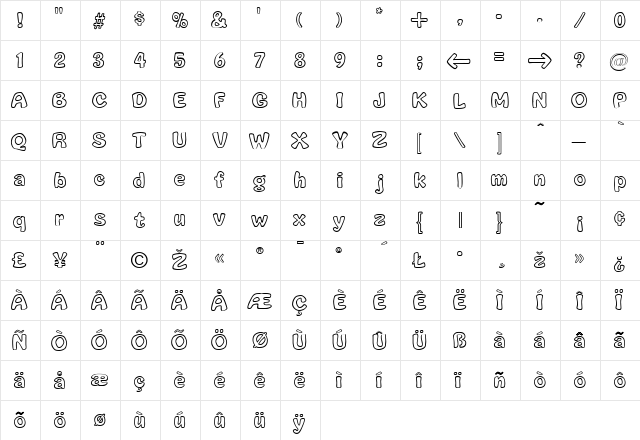
GrafitoOutline Regular
Design Context for GrafitoOutline Typeface
GrafitoOutline brings ornamental detail and strong personality to headlines and identities, where visual impact matters more than quiet functionality.
Font Pairing: Pair with a clean neutral sans-serif for body copy to let GrafitoOutline's character lead without overwhelming the composition.
Pro Tip: Use GrafitoOutline exclusively at display sizes — it was designed to be seen, not read at length. Let a neutral companion handle body copy.